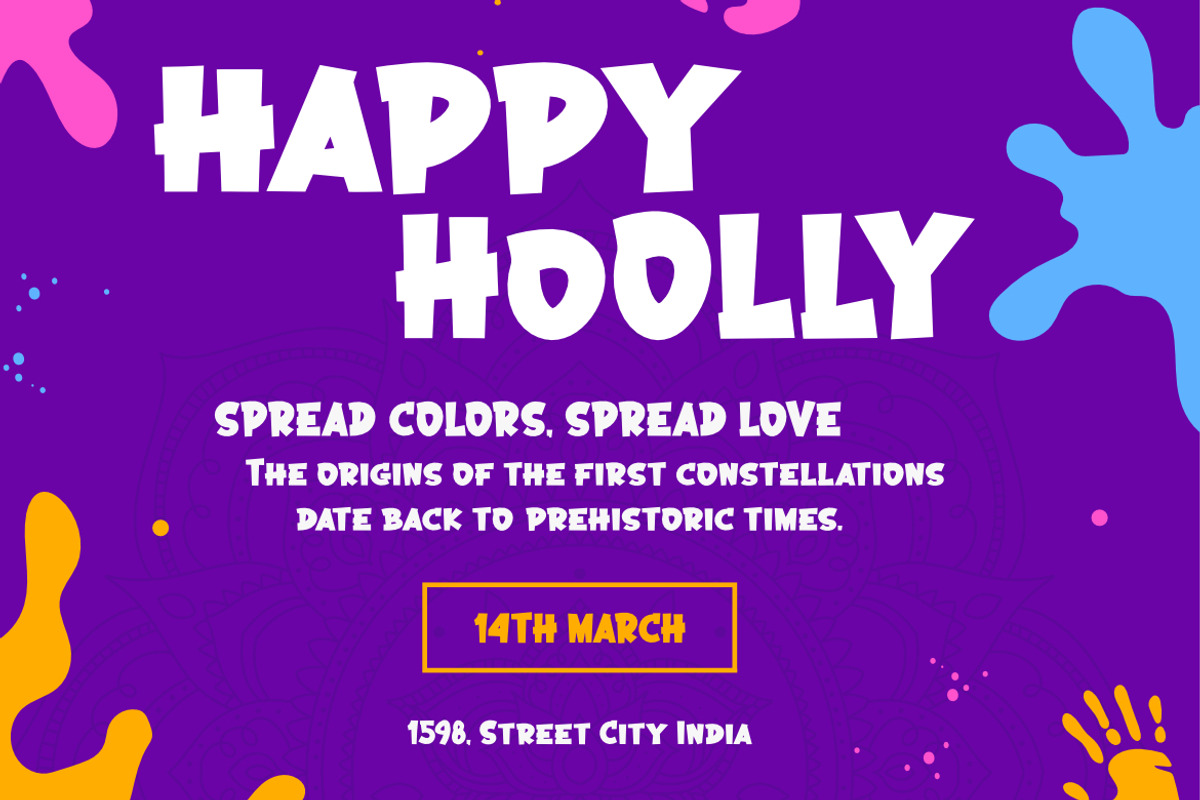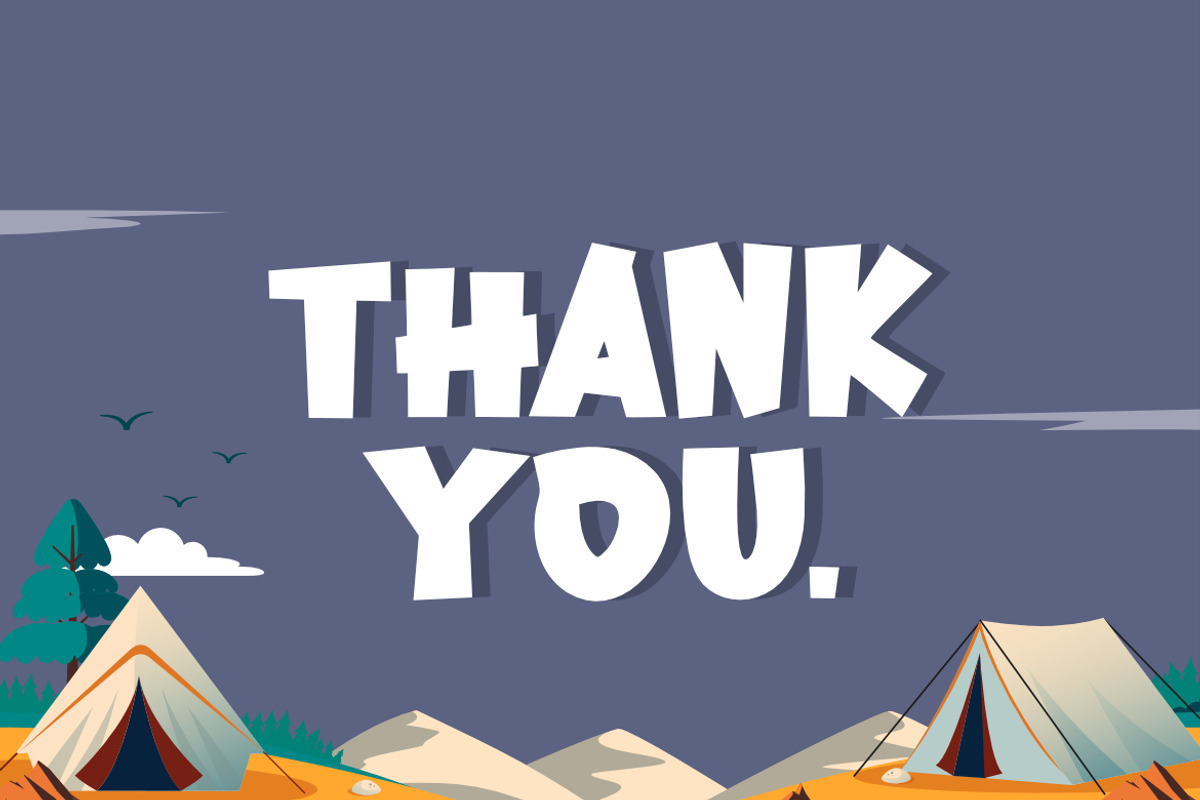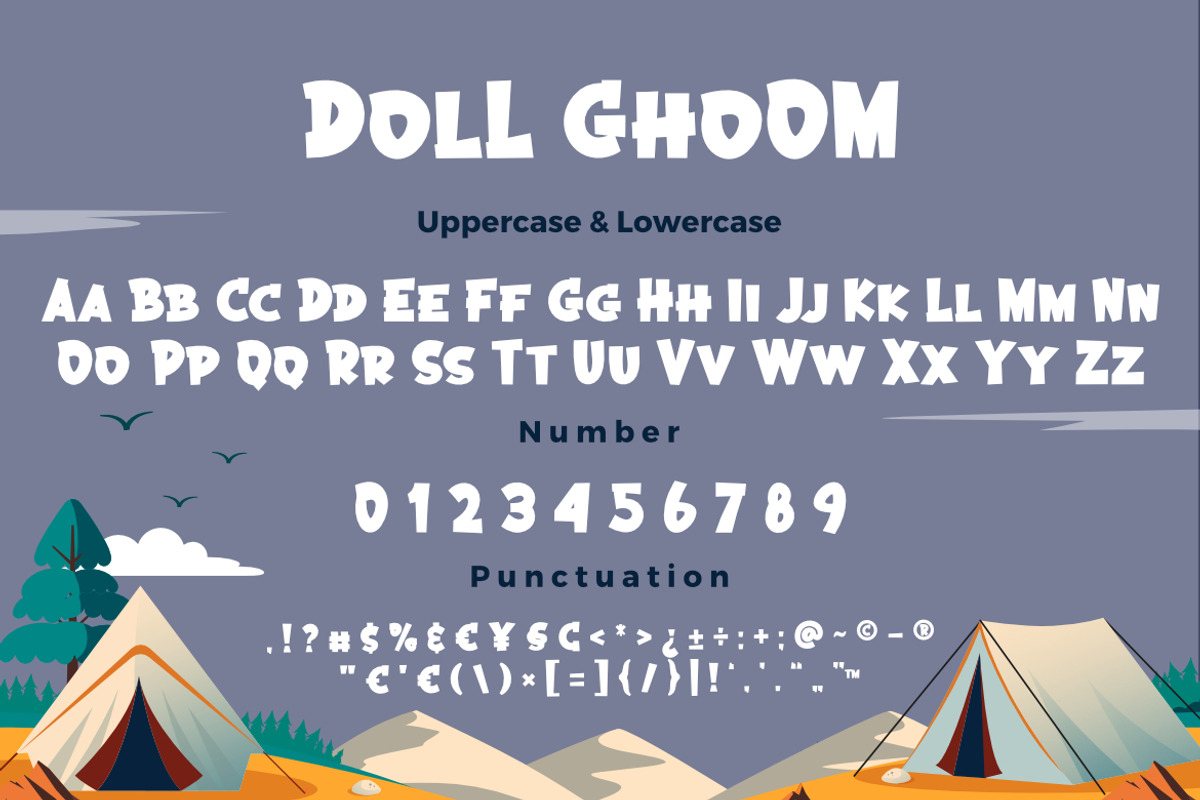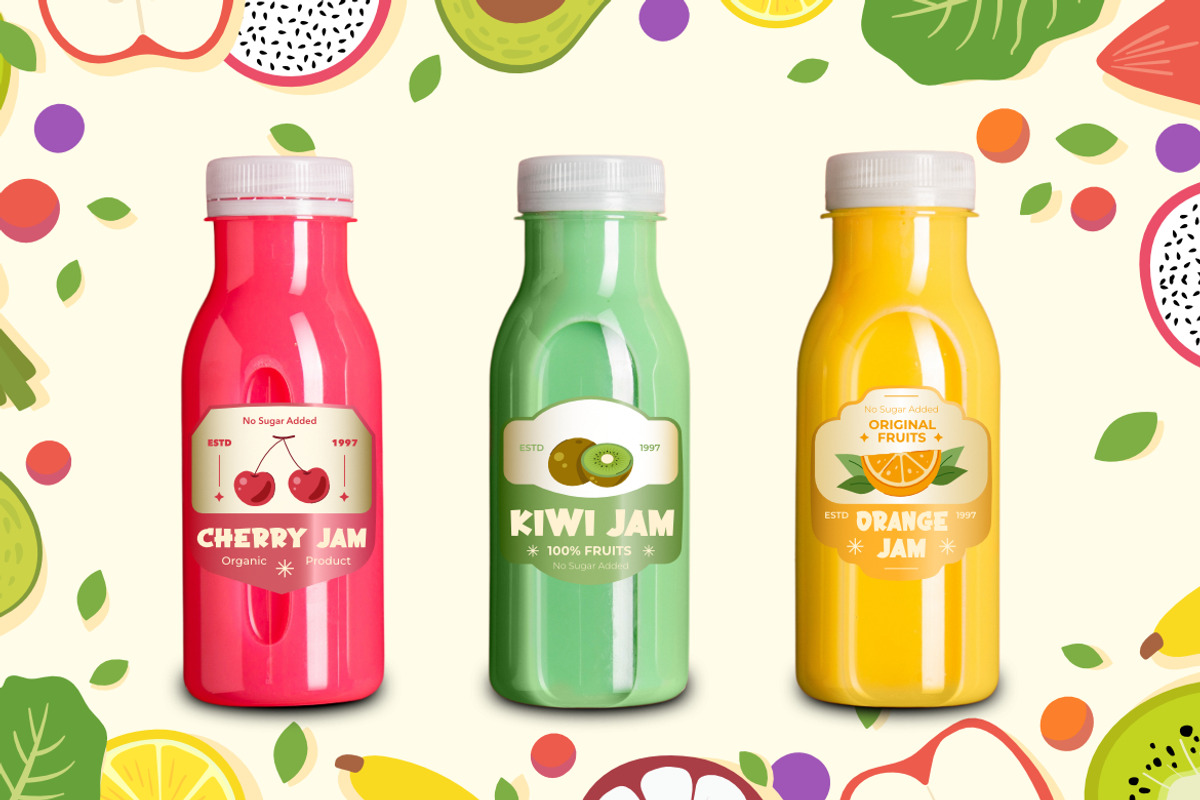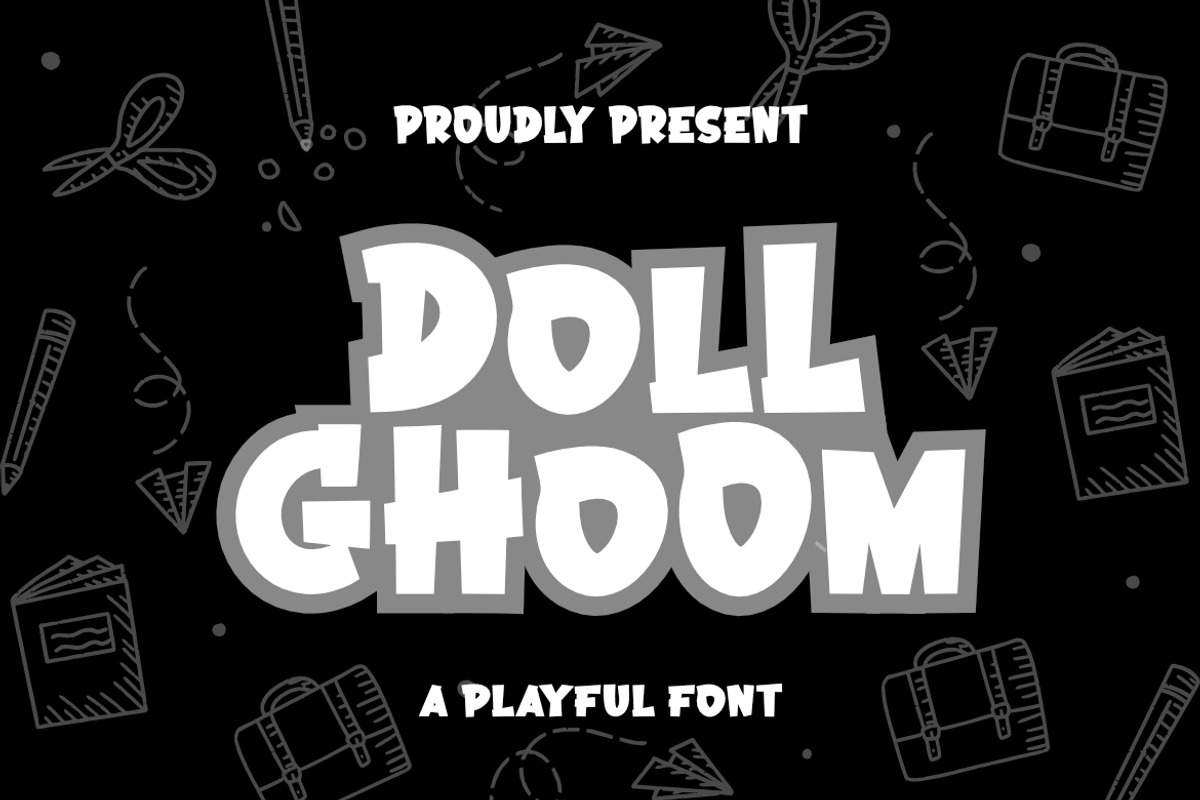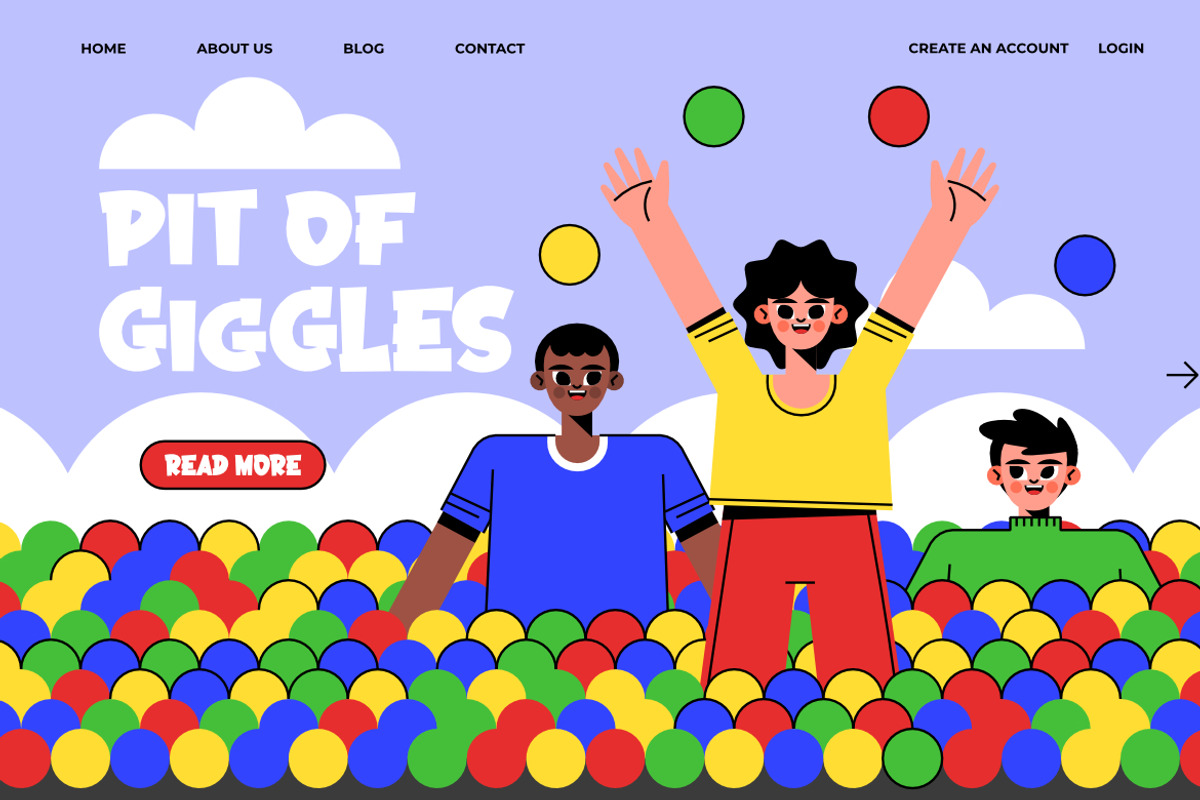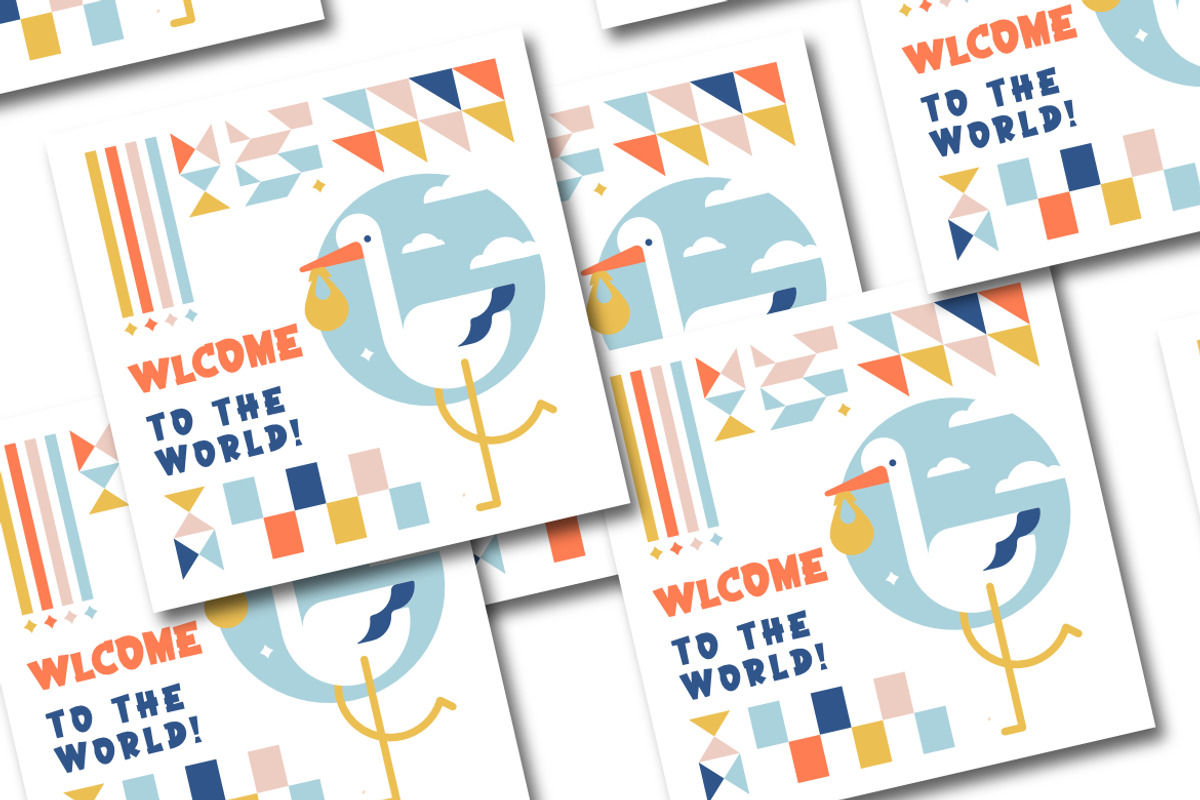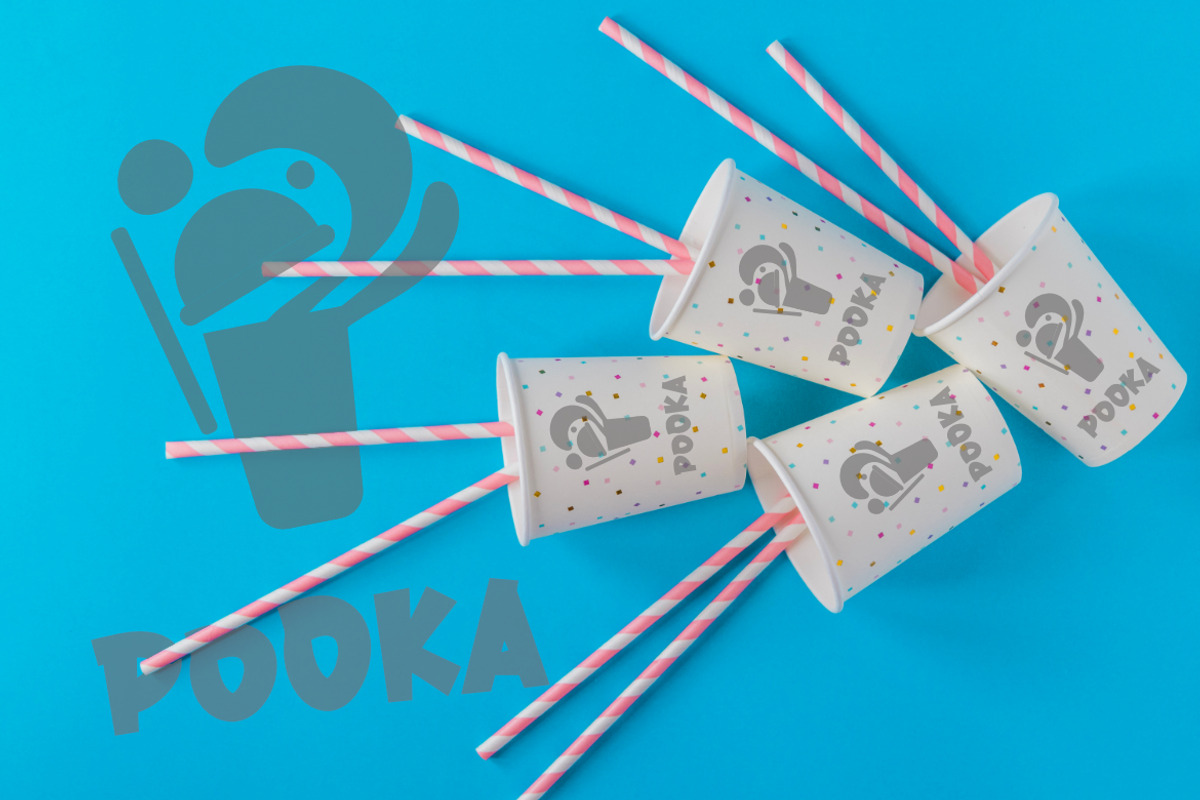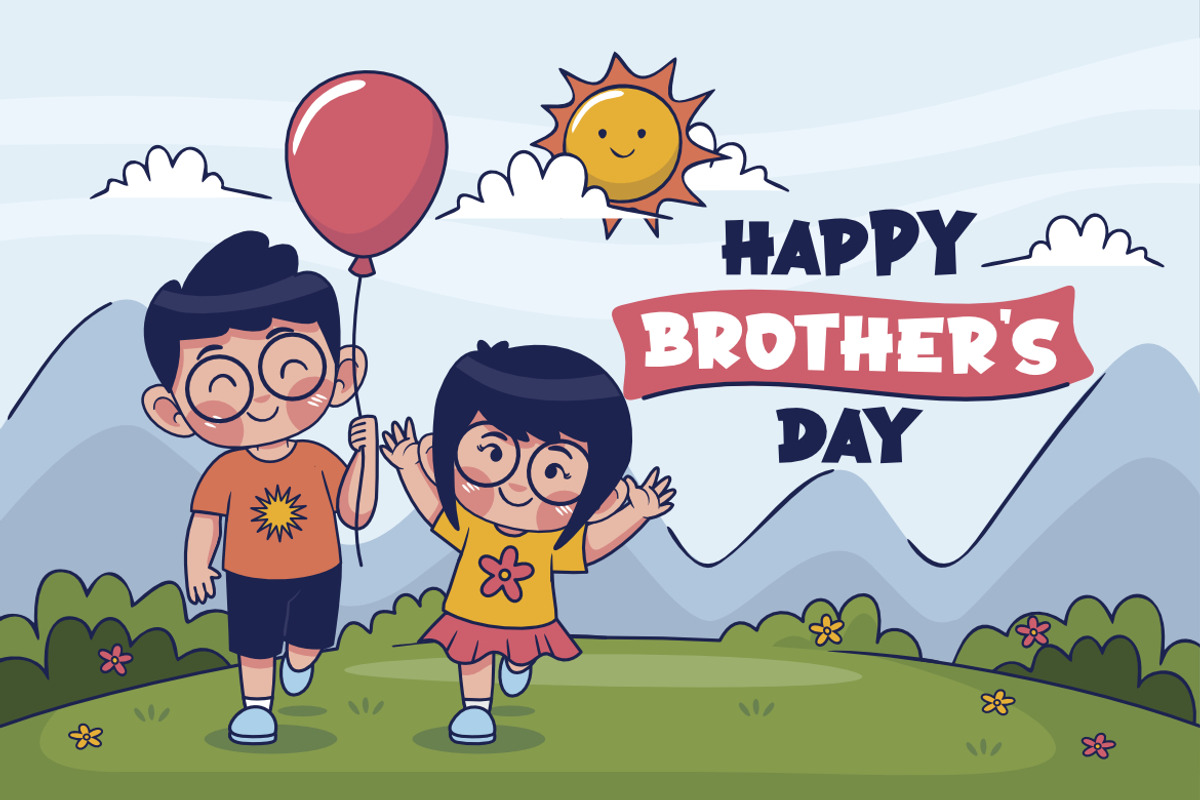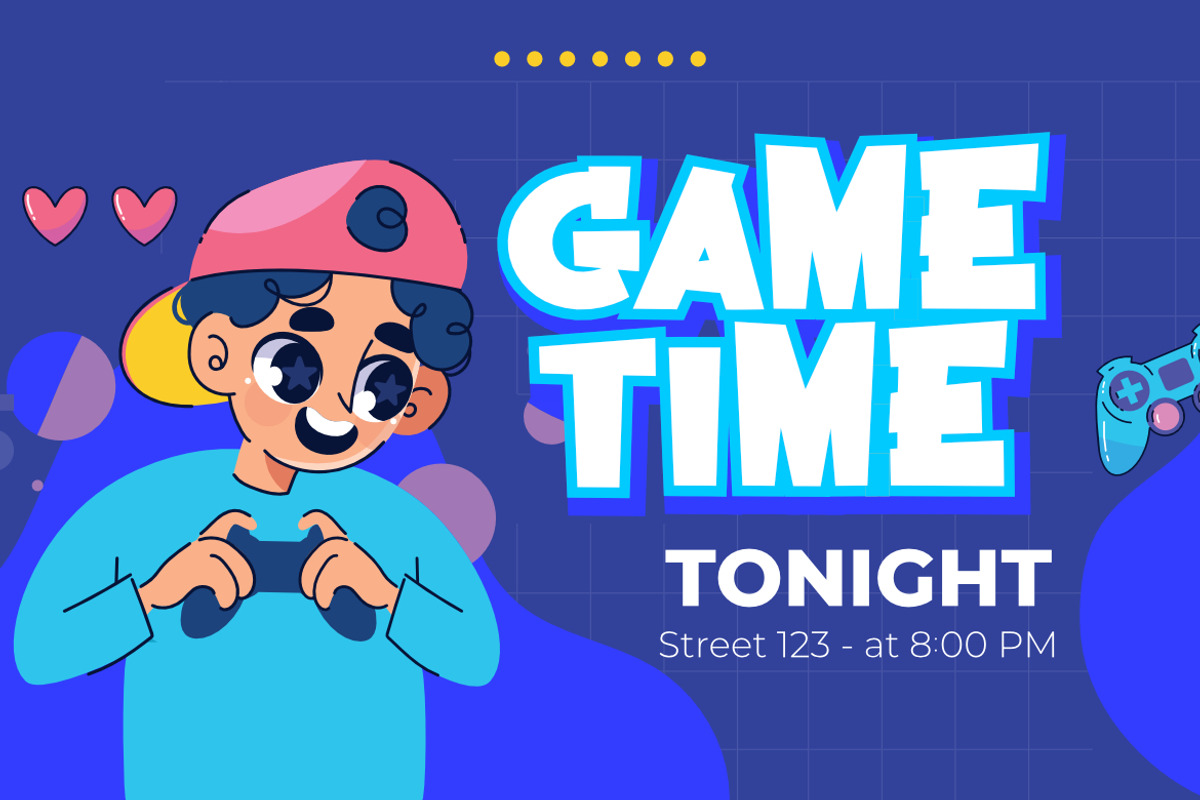
Dool Ghoom - Adorable Premium Font
Doll Ghoom – Adorable Premium Font
Doll Ghoom is a fun and cheerful display font crafted with precision and personality. Its lively letterforms are perfect for playful branding, kids-themed projects, packaging, posters, social media, merchandise, and more.
This font is designed to be both charming and highly versatile—ready to bring a whimsical touch to your creative work.